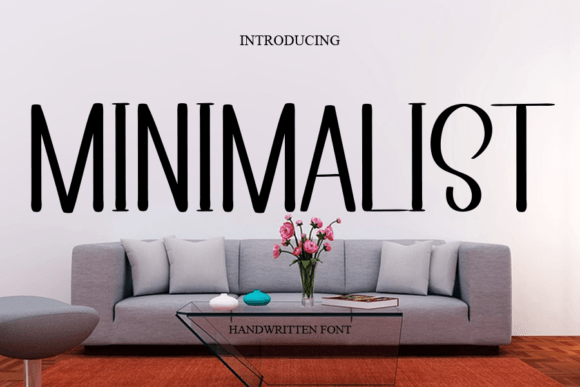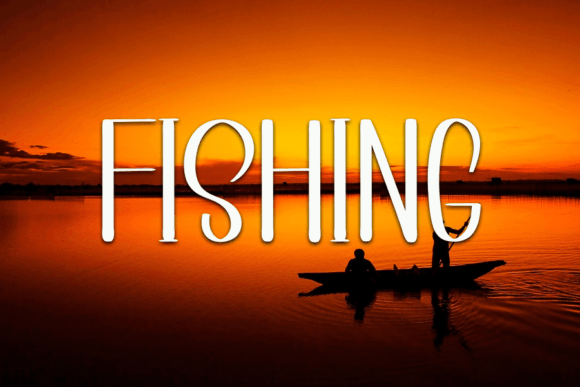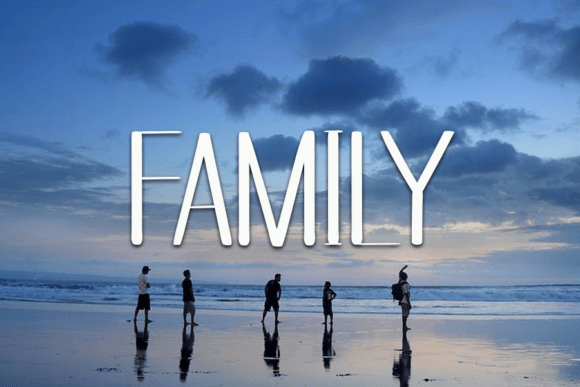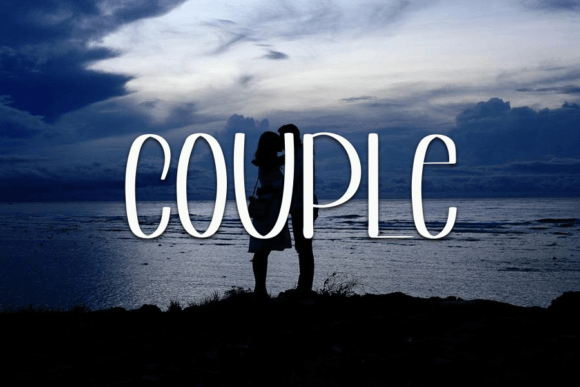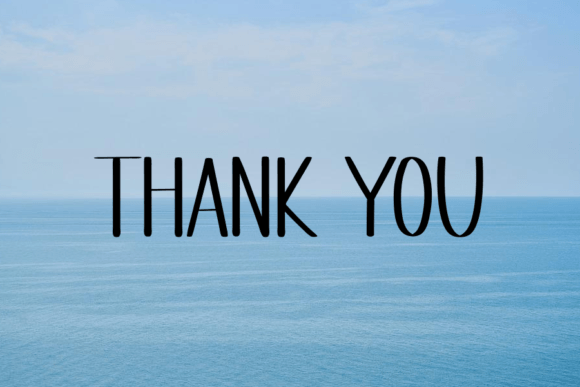
Minimalist Font
About Minimalist Font
**”Minimalist”** is a simple and friendly handwritten font that brings an approachable and versatile quality to your design projects. Whether you’re working on crafts, digital design, presentations, or creating greeting cards, this font has the potential to become your favorite go-to choice for various occasions.
In crafting projects, **”Minimalist”** offers a clean and accessible aesthetic. Its simplicity and friendliness make it a versatile font for DIY projects, scrapbooking, and other creative endeavors, ensuring that your crafted items have an appealing and welcoming appearance.
For digital design, this font adds a touch of accessibility and approachability to your content. Whether you’re designing web graphics, digital art, or other digital media, **”Minimalist”** contributes a clean and friendly element to your designs, making them more relatable to your audience.
Presentations become more engaging with the use of **”Minimalist.”** Its simple and friendly appearance can be employed for titles, headings, or other text elements in your slides, enhancing the overall readability and relatability of your content.
Greeting cards designed with **”Minimalist”** have a clean and inviting quality. This font adds character and charm to your cards, making them more appealing and relatable to recipients, regardless of the occasion.
In summary, **”Minimalist”** is a simple and friendly handwritten font that is suitable for a wide range of design projects. Its approachable and versatile style makes it a valuable choice for crafts, digital design, presentations, greeting cards, and any creative project where simplicity and friendliness are desired, regardless of the occasion.